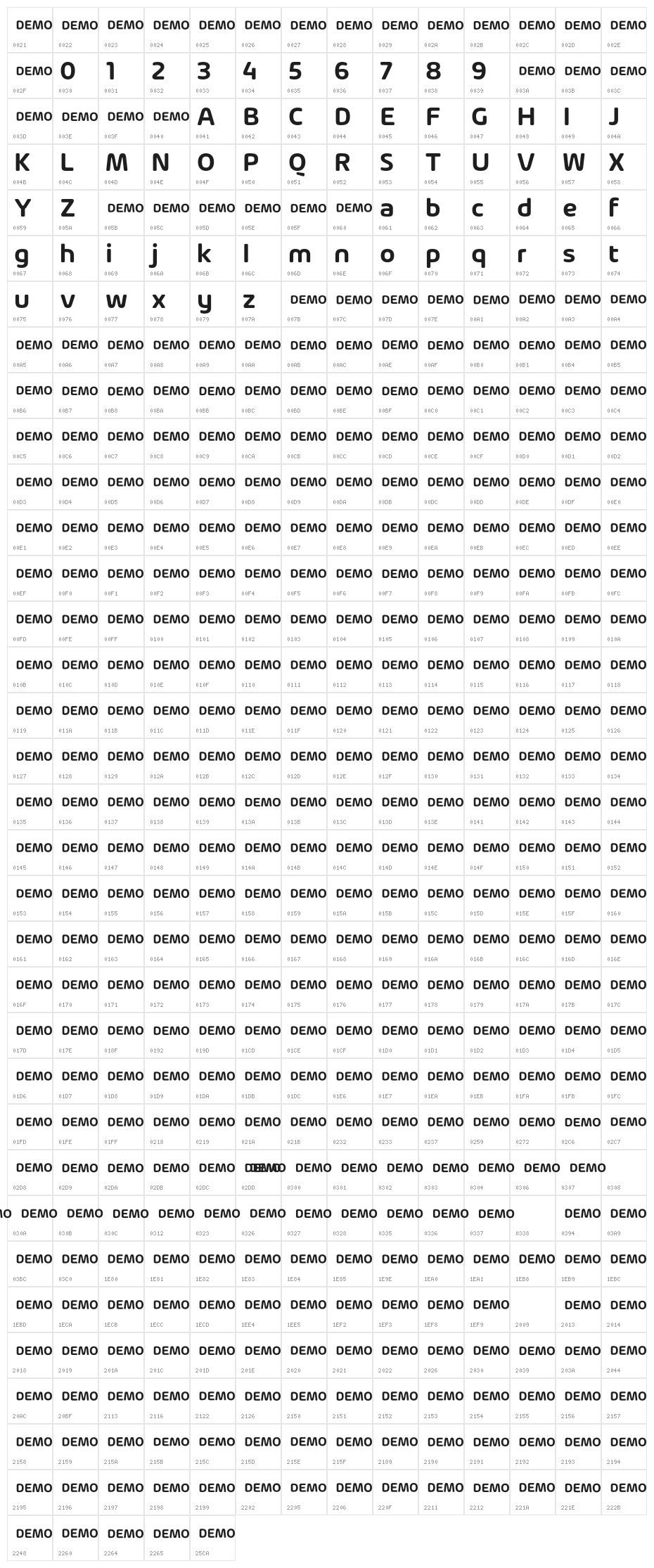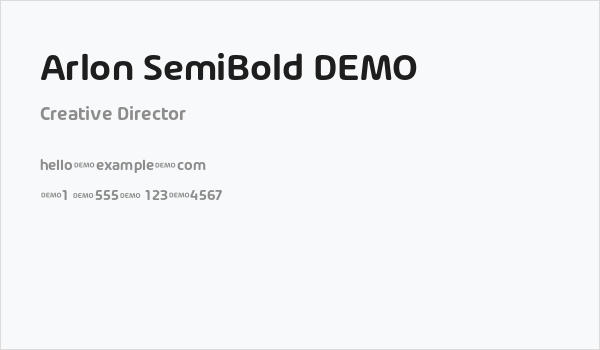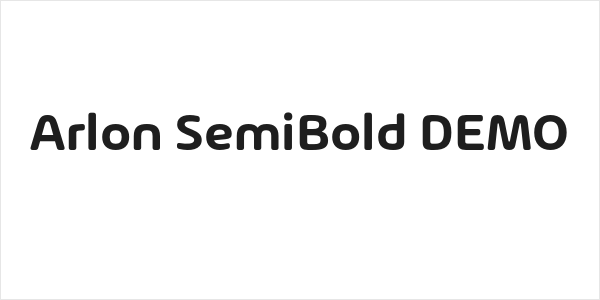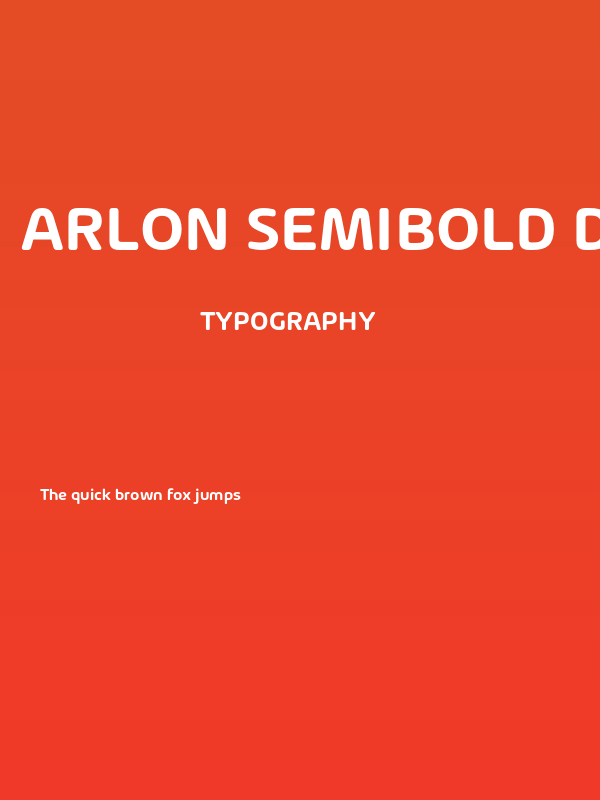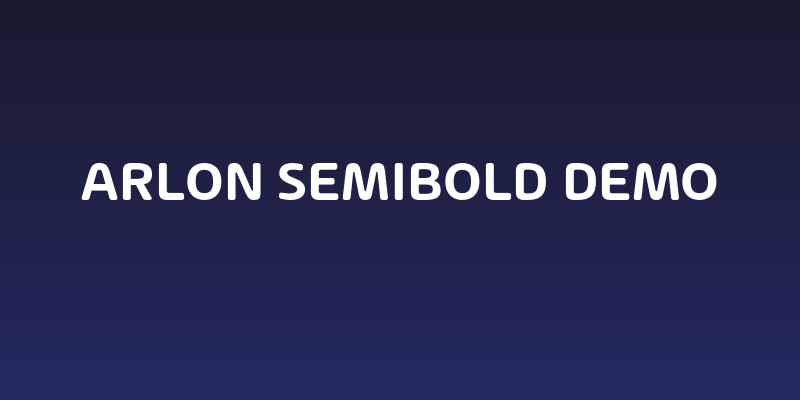
Arlon SemiBold DEMO Font
Arlon SemiBold DEMO Description
This font features a modern, rounded sans-serif style with smooth curves and a clean appearance. The characters are well-balanced, offering a friendly and approachable look. The uppercase letters are bold and prominent, while the lowercase letters maintain a consistent flow with slightly rounded edges. The numerals are clear and easy to read, matching the overall aesthetic of the font. This typeface is versatile, suitable for both digital and print media, and can be used in various design contexts.
| Proposed Projects | Ideal for branding, advertising, web design, and user interfaces due to its modern and approachable style. |